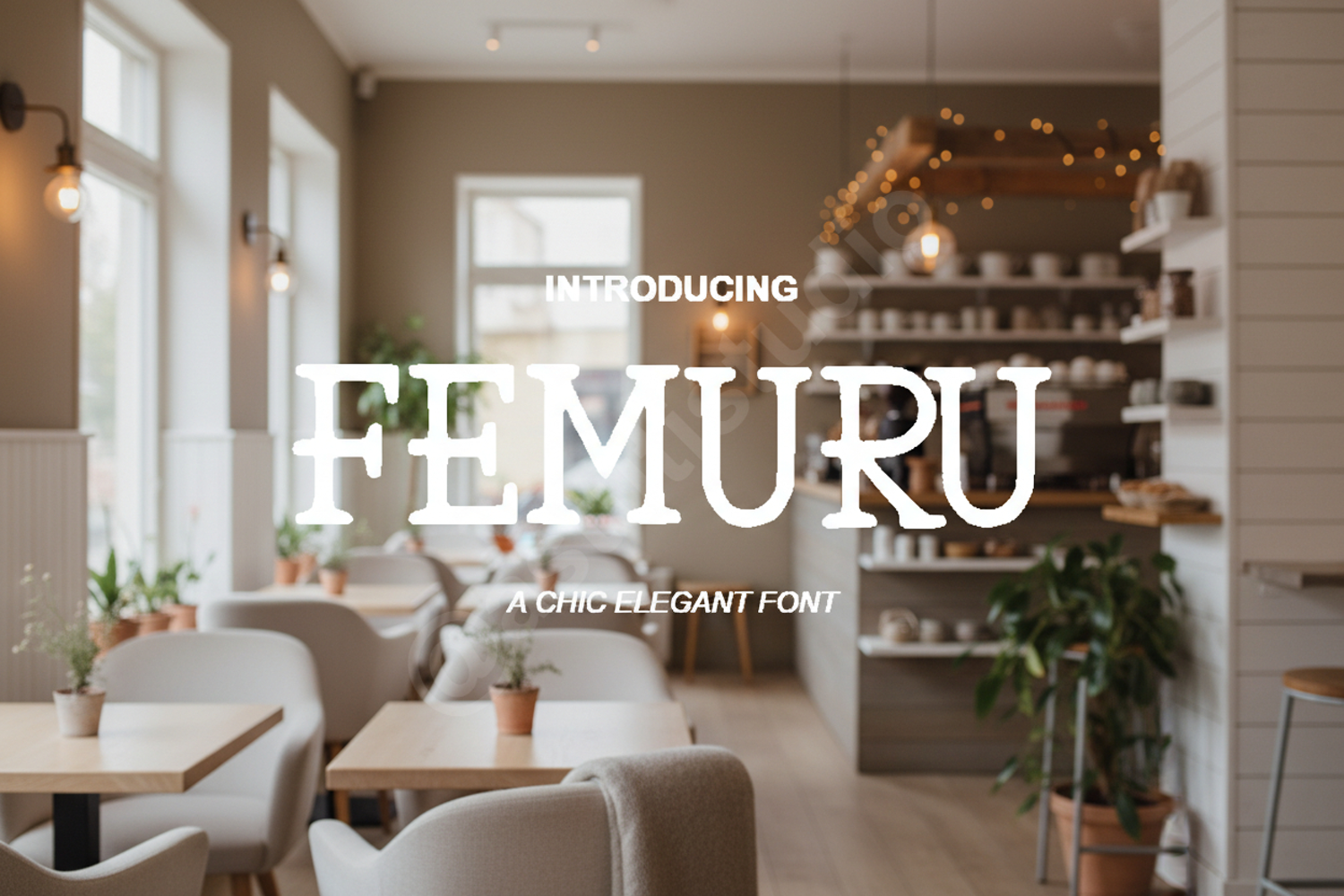
Femuru - Elegant Modern Serif Typeface
Femuru
Femuru is a premium serif typeface that blends classic sophistication with modern aesthetics. Designed with precision and a focus on high-end appeal, Femuru offers clean lines and unique character shapes that make every design stand out. Whether you are aiming for a minimalist look or a bold statement, this font provides the versatility needed for professional projects.
- Full character set including uppercase and lowercase
- Luxury Branding: Perfect for high-end fashion and lifestyle brands.
- Wedding Stationery: Create timeless invitations and save-the-date cards.
- Editorial Design: Ideal for magazine headlines and sophisticated layouts.
- Logo Design: Craft memorable and unique brand identities with ease.
- Product Packaging: Elevate your product presentation with elegant typography.